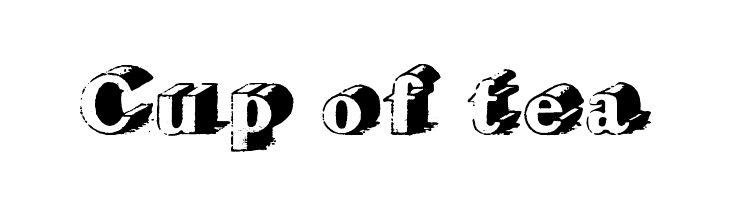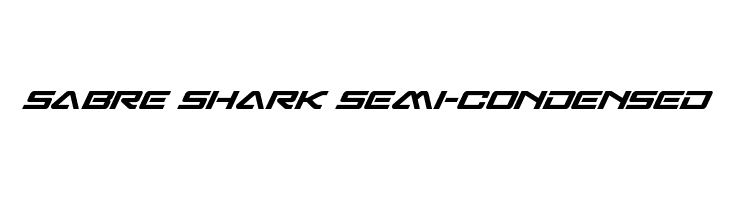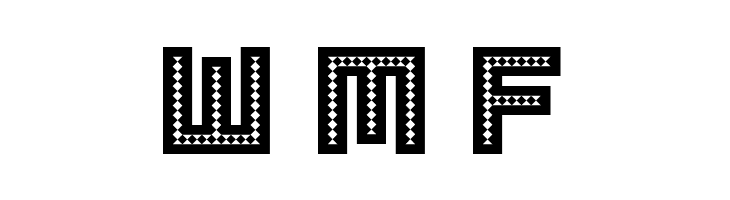
A bold, distressed 3D font with a vintage, rugged appearance.
A playful font with letters embedded in construction vehicle graphics.
A bold, futuristic font with geometric outlines and strong visual impact.
A bold, playful font with thick, rounded letters and a retro vibe.
A playful, handwritten font with a casual and friendly appearance.
A bold, futuristic font with angular cuts and a semi-condensed style.
Bold, outlined, italic font with a modern, tech-inspired style.
A bold, italic, halftone font with a futuristic and dynamic style.
A bold, geometric stencil font with an industrial feel.